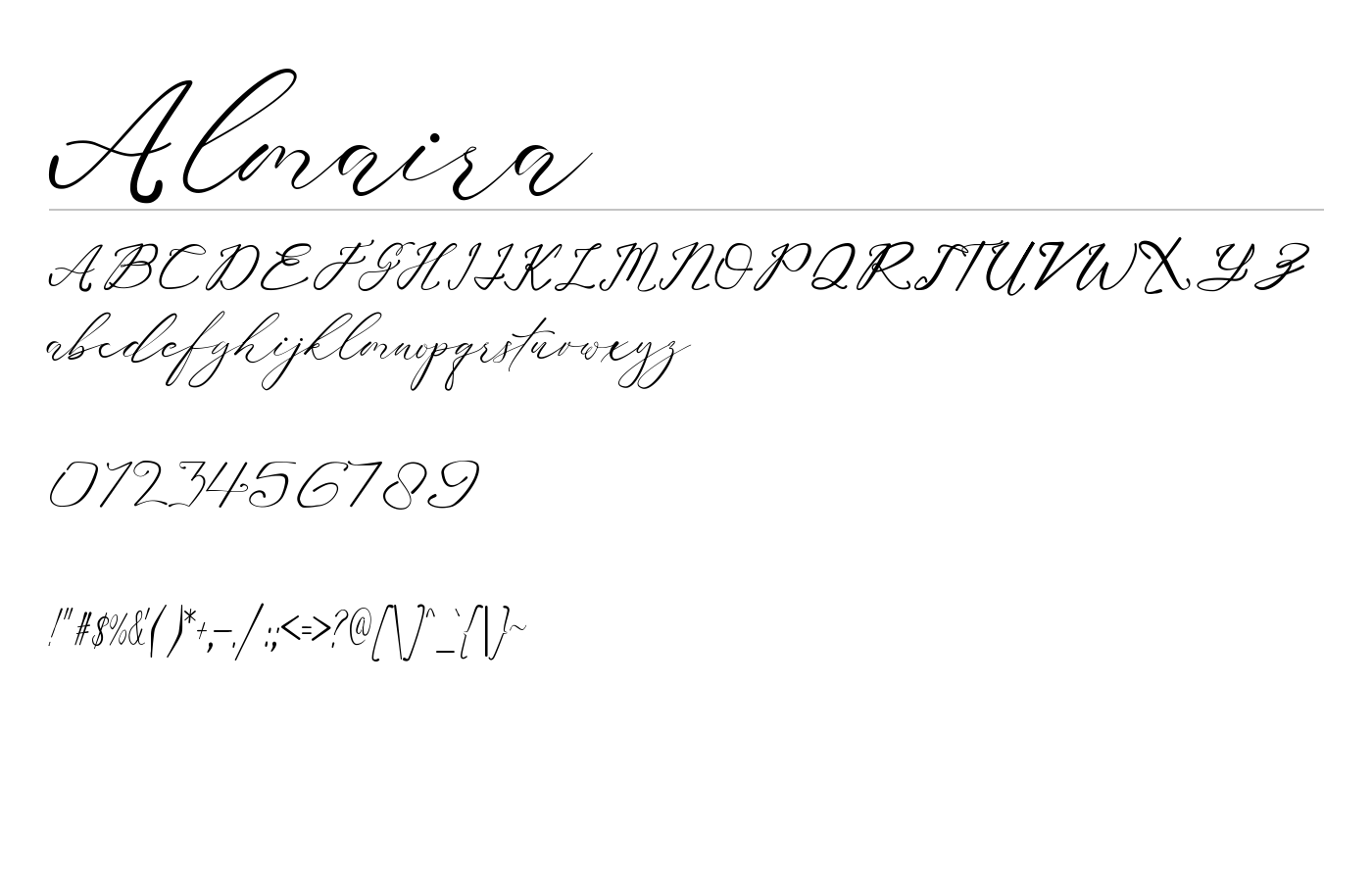
Almaira is an elegant script font with a delicate, flowing style that mimics natural handwriting. Its fine strokes and graceful curves give it a sophisticated and romantic feel, making it perfect for wedding invitations, luxury branding, and feminine designs where a touch of refinement is desired. This font works best in headlines or decorative text rather than body copy due to its intricate details and light weight.
Almaira Font
About Almaira Font
| Designer | Dedi Irawan |